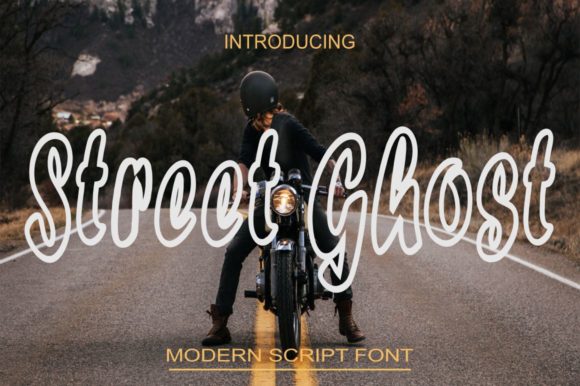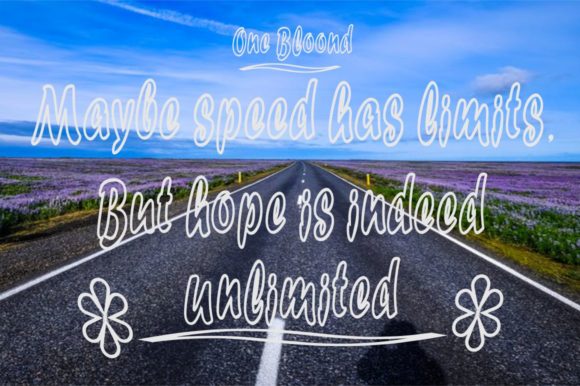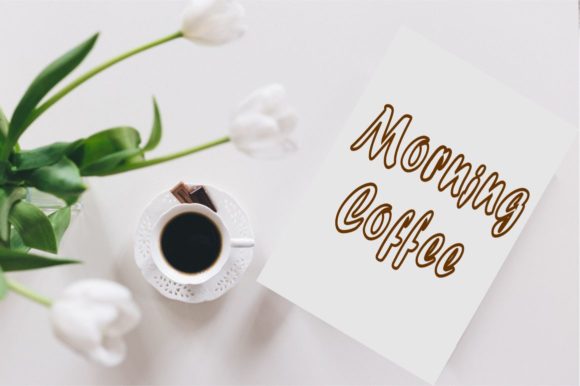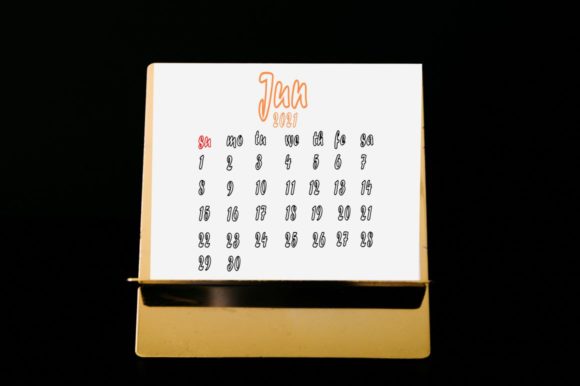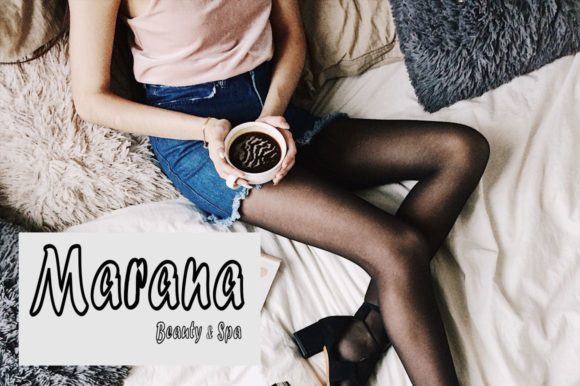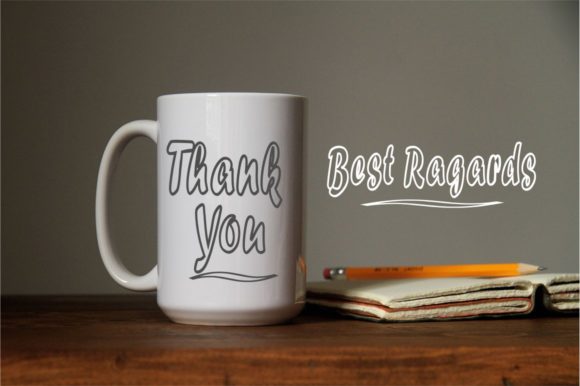
HomeScript FontsStreet Ghost Font Script Fonts Street Ghost Font FacebookXPinterestWhatsApp Street Ghost Font Poster 2 Street Ghost Font Poster 3 Street Ghost Font Poster 4 Street Ghost Font Poster 5 Street Ghost Font Poster 6 About Street Ghost Font Street Ghost is unique and light, but also elegant. This classy script belongs in any crafter’s font collection. DOWNLOAD ON CREATIVE FABRICAThis font is sold and delivered by Creative Fabrica. Font Canyon may earn a commission if you buy through this link. People also explored Garlic Font Monogram Digipast Font Purple River Font Aesthetic Font Beautiful Font Vintage House Font Kaiden Font Brownies Lover Font Living Snowman Font 402 0 TagsStreet Ghost Font Previous articleElegrand FontNext articleGlamour Font LEAVE A REPLY Cancel reply Comment: Please enter your comment! Name:* Please enter your name here Email:* You have entered an incorrect email address! Please enter your email address here Website: Save my name, email, and website in this browser for the next time I comment. Personal Use Free Xplor Personal Use Free Read more about this font Alista Font Personal Use Free Read more about this font Ontel Personal Use Free Read more about this font Maharany Personal Use Free Read more about this font BLOG Using Fonts in Digital Marketing: Tips to Strengthen Your Brand Identity In the realm of digital marketing, every visual element plays a crucial role in shaping a brand's identity, and fonts are no exception. The... To increase your work productivity, choose the most readable fonts. Best Fonts for YouTube Videos: Make Your Thumbnails Stand Out Transform Your Website: Elevate Your Typography with 7 Best Web Font Generators